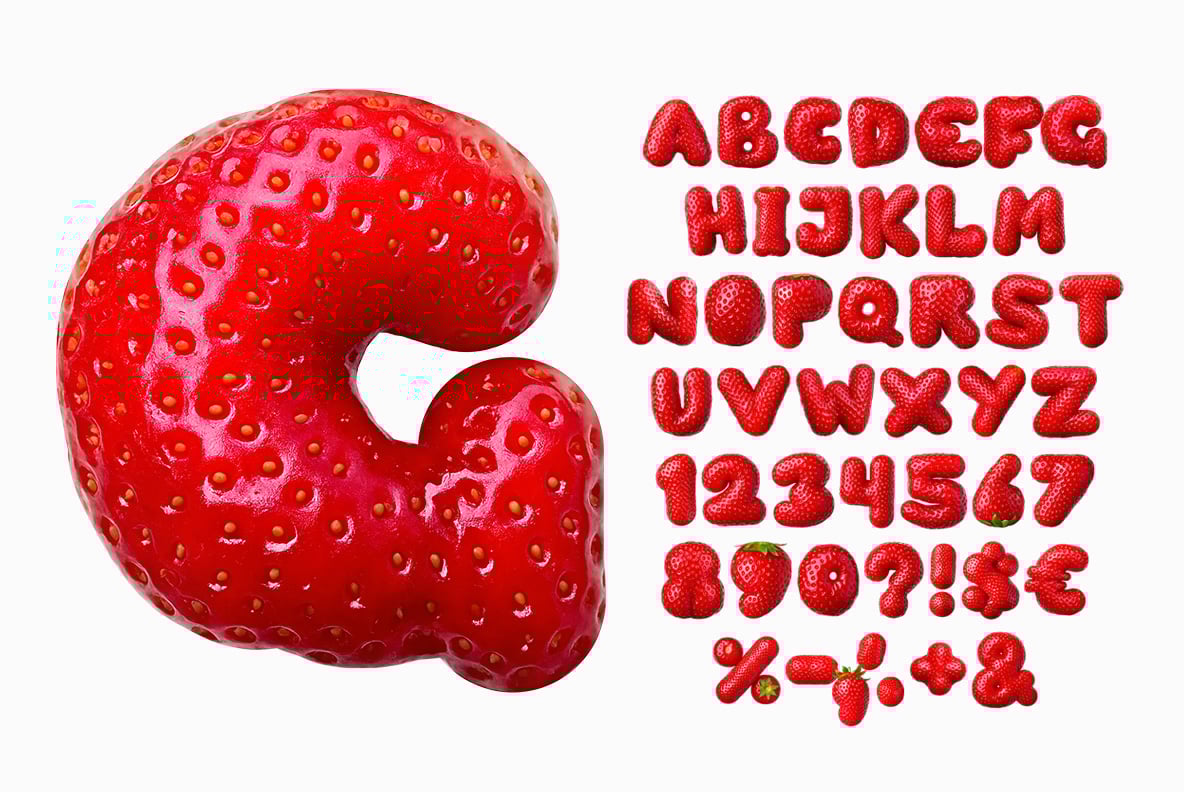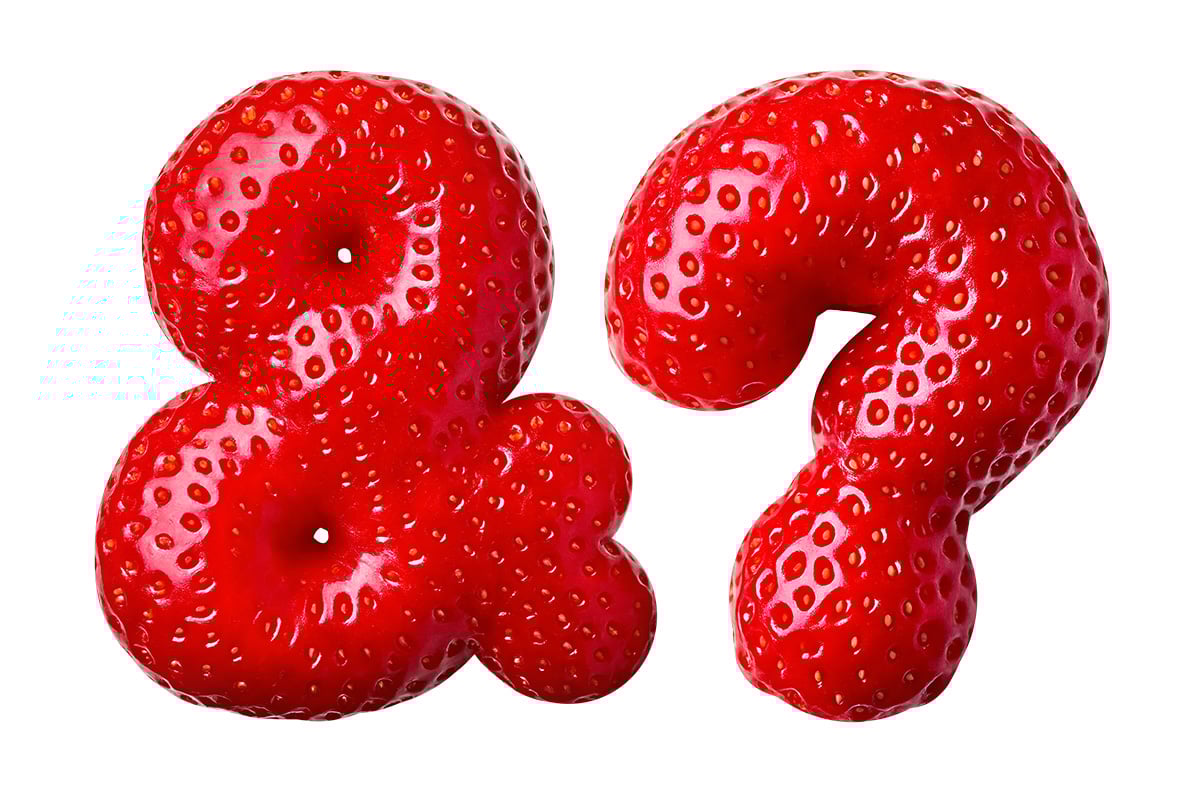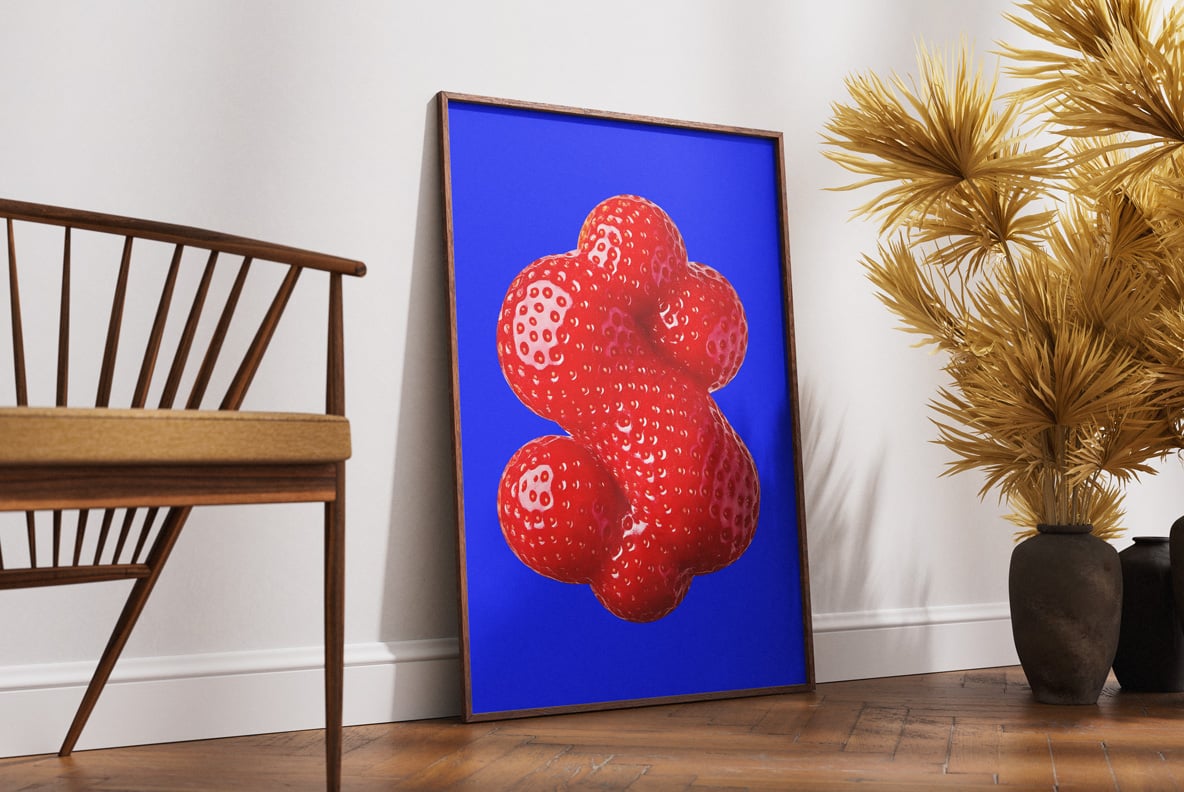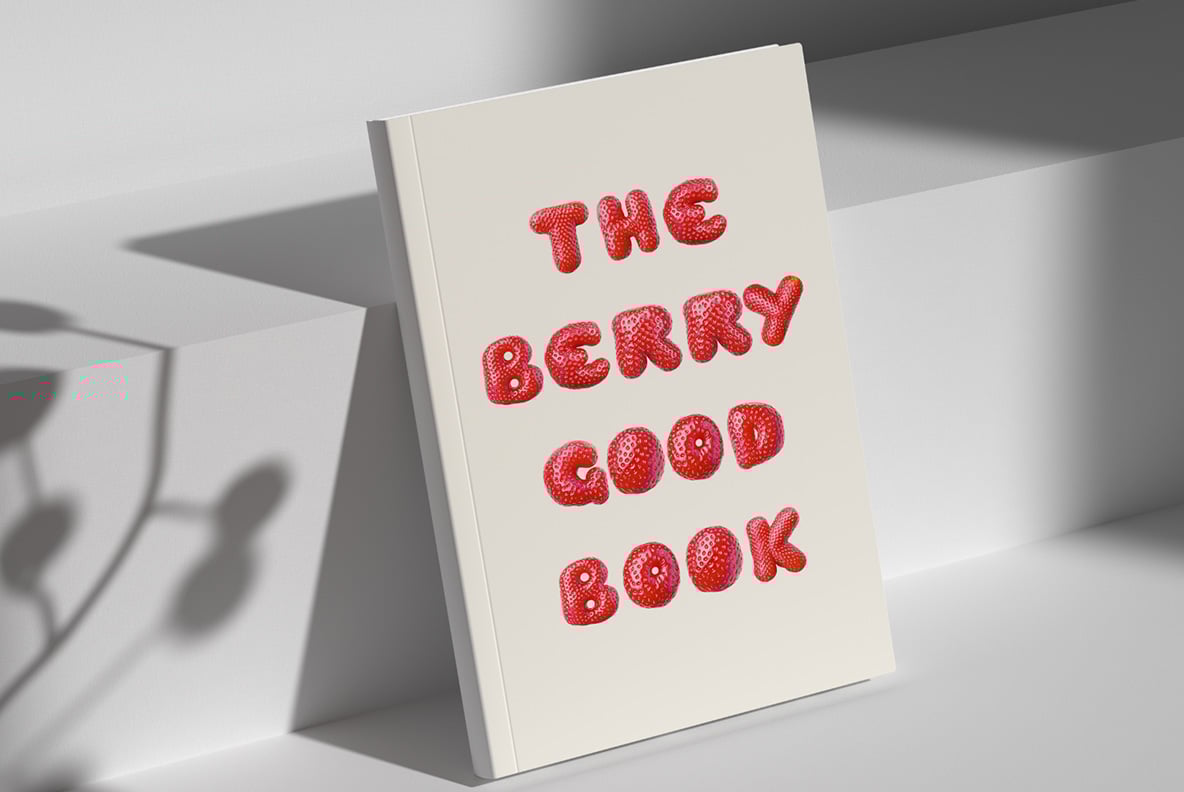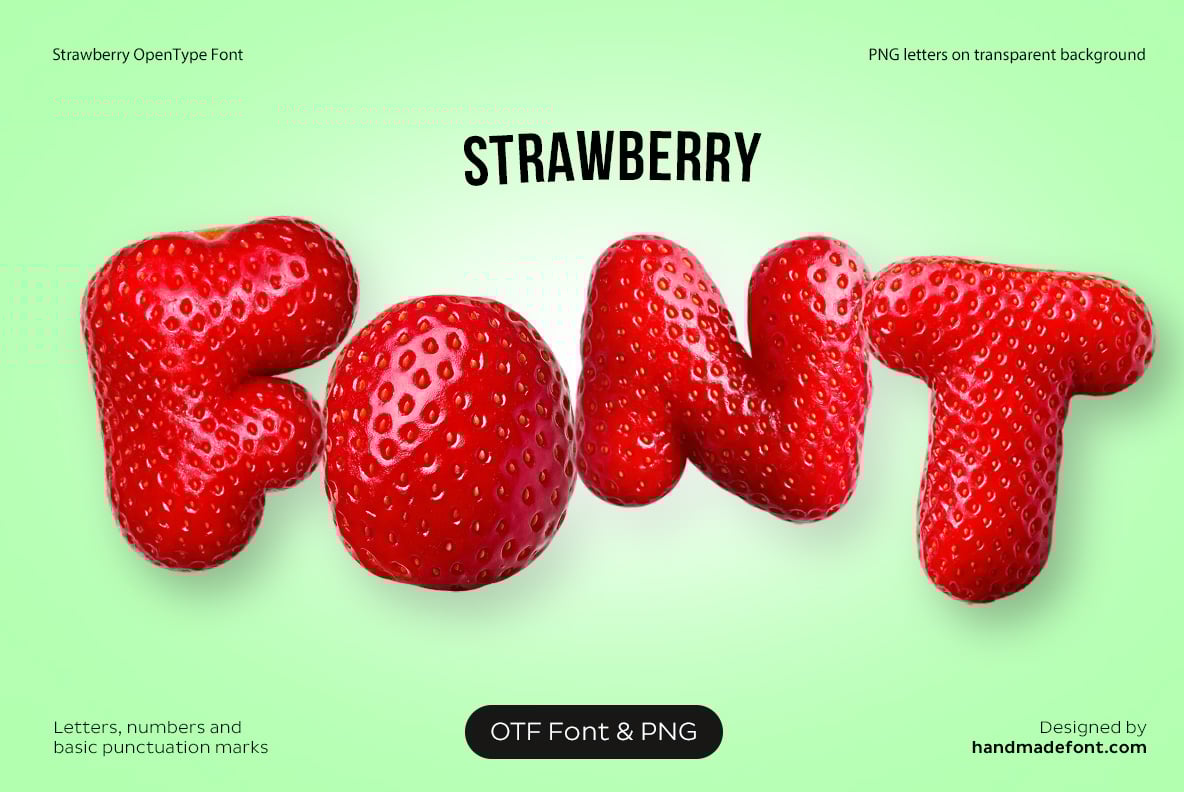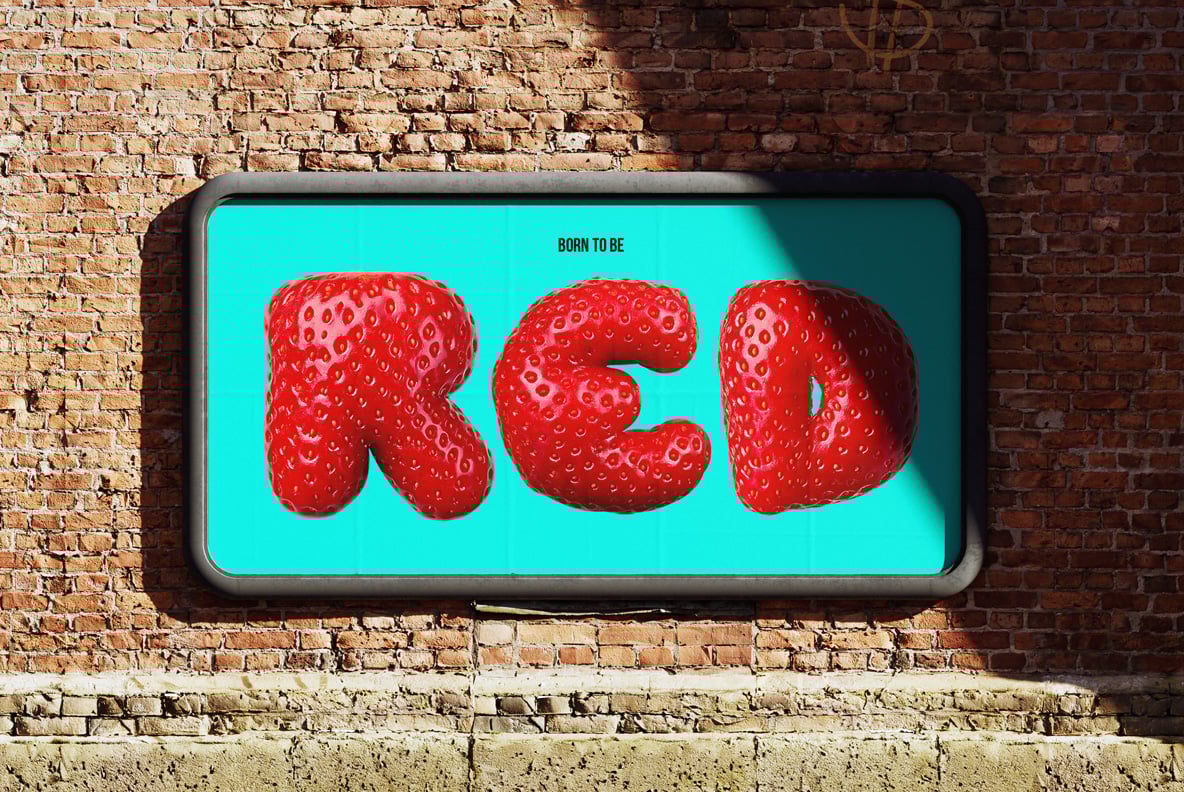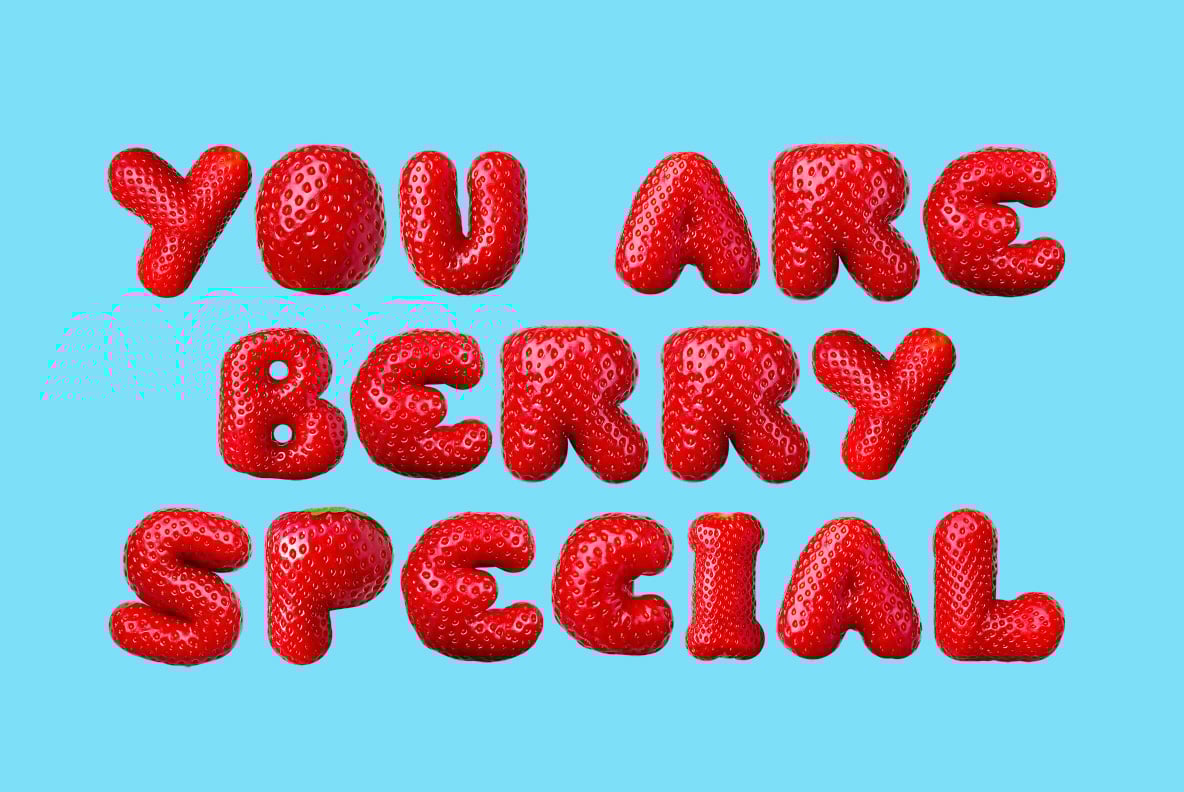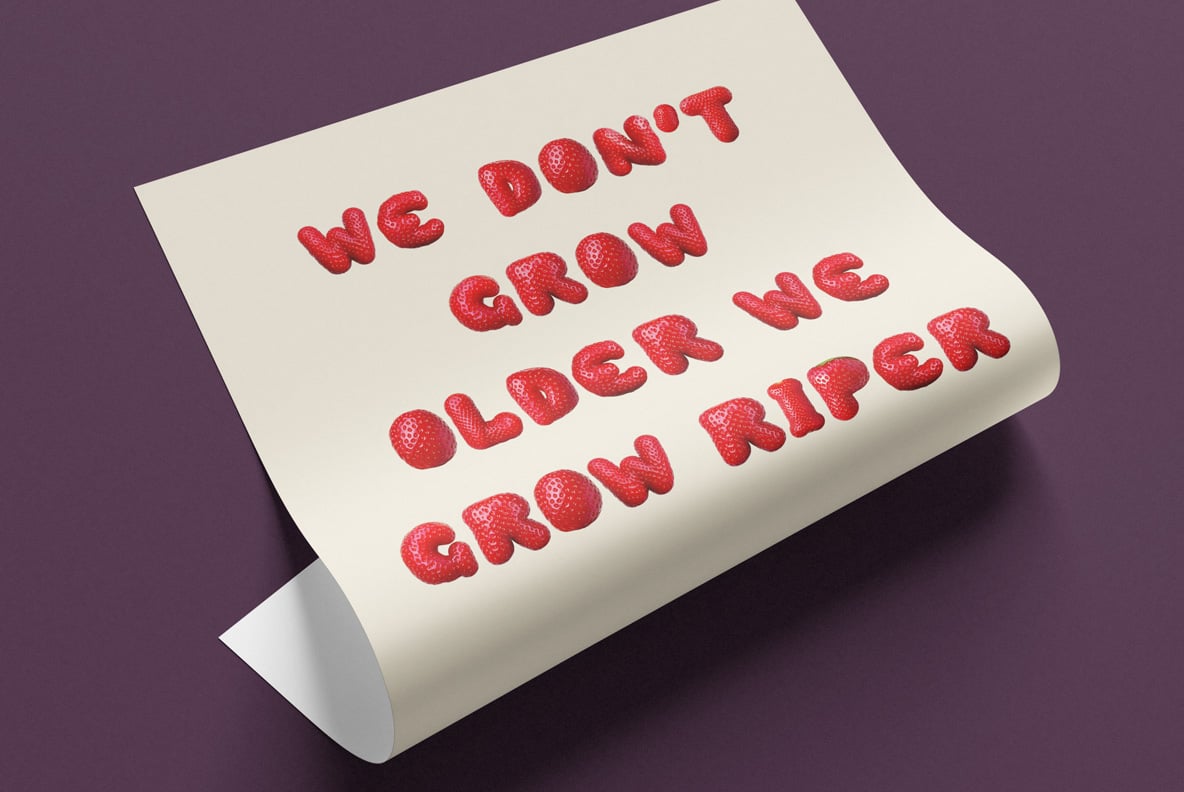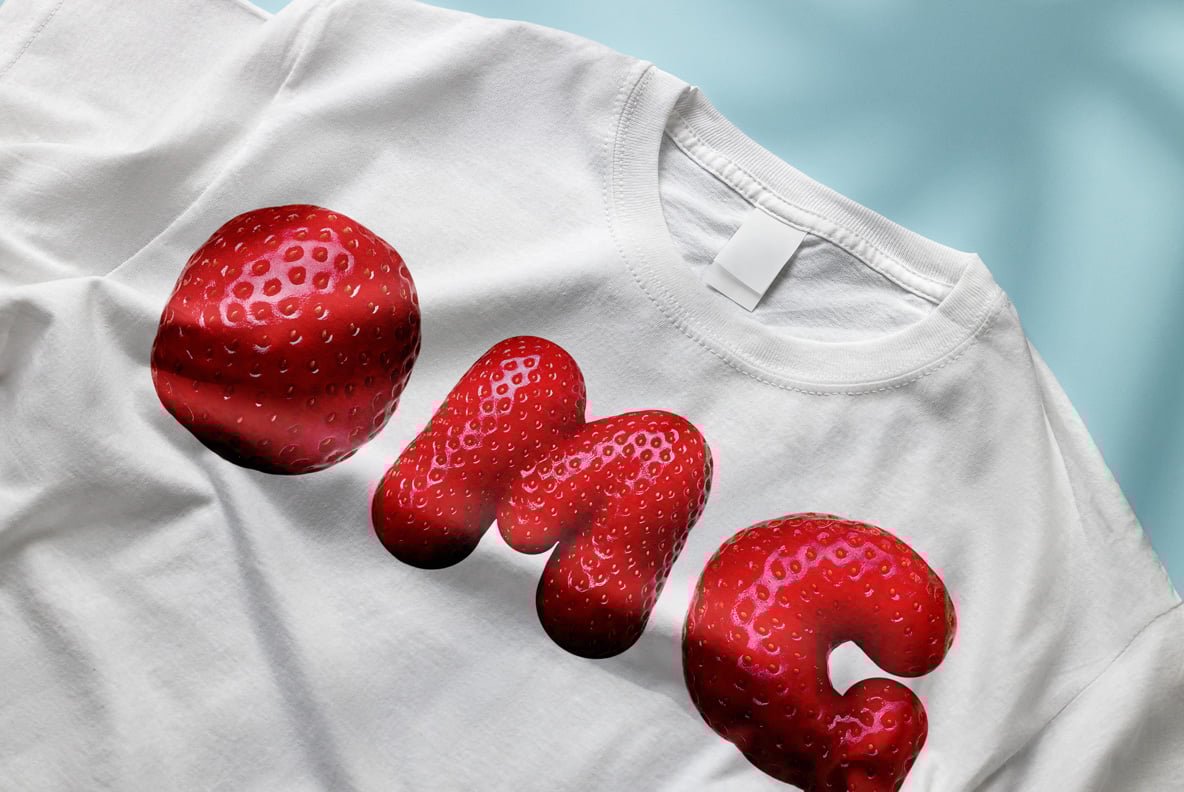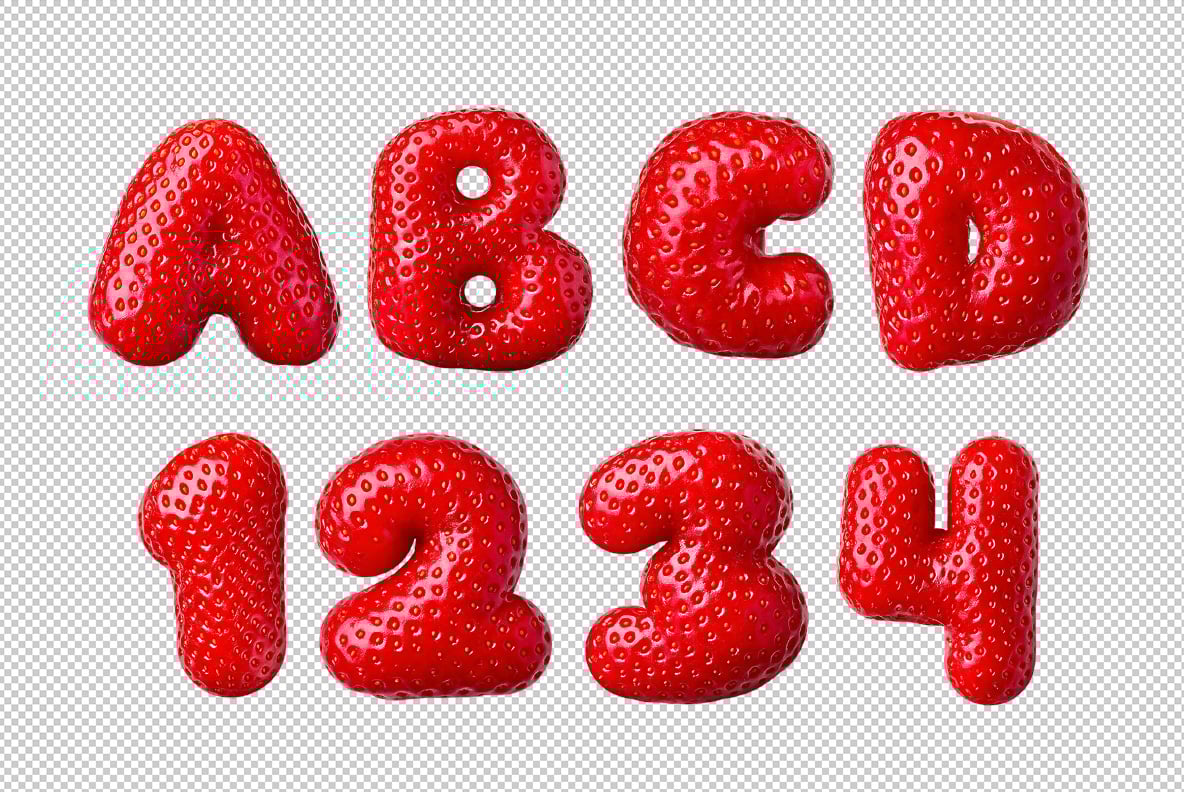
Strawberry Font
Strawberry Font: a juicy, vibrant alphabet inspired by the look of fresh, ripe strawberries. Each letter bursts with the rich red hue and texture of strawberry skin, complete with seeds for added realism. Perfect for playful, sweet designs—ideal for food themes, summer vibes, or adding a fun, fruity twist to your text!
A high definition OpenType Font. Contains uppercase characters, numerals and basic punctuation. (Draw height roughly 800 pixels). All letters and glyphs that comprises this font you can see on the preview.
Others : ! ? - . ' $ € % &